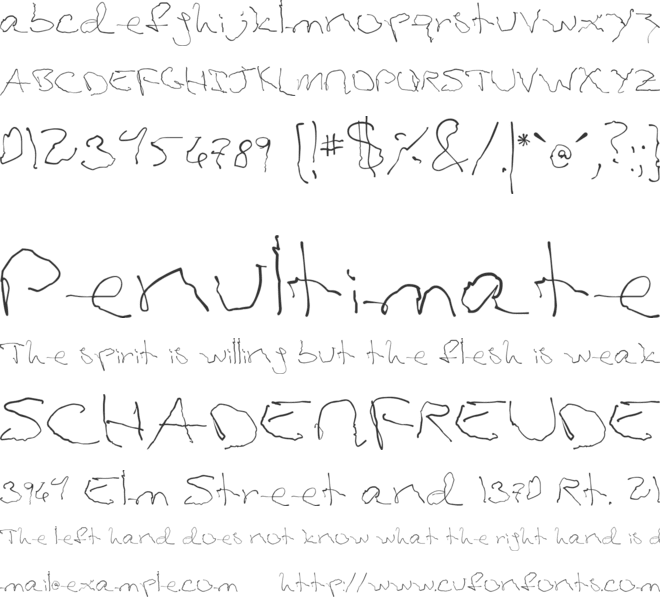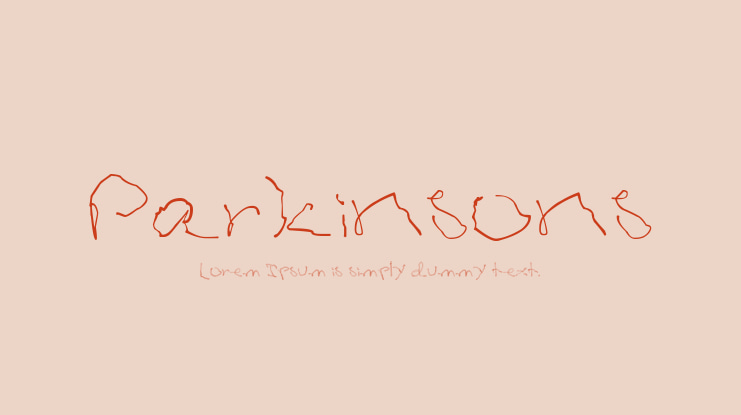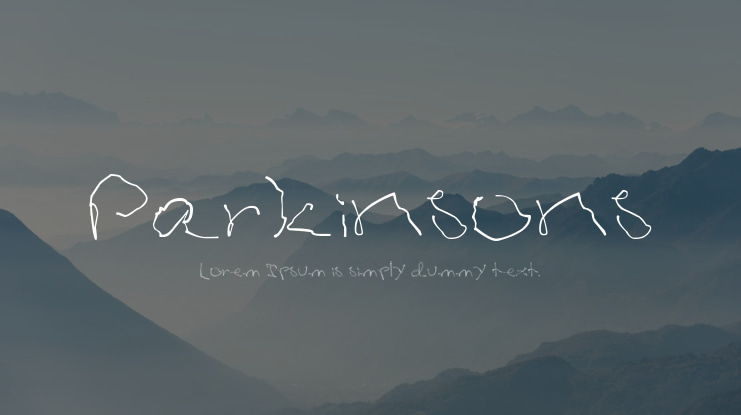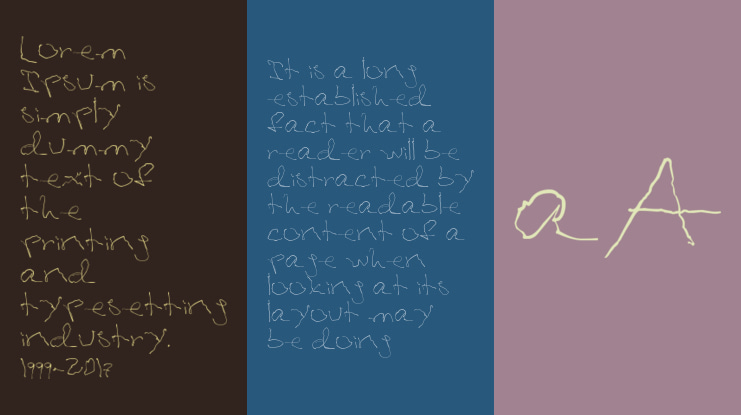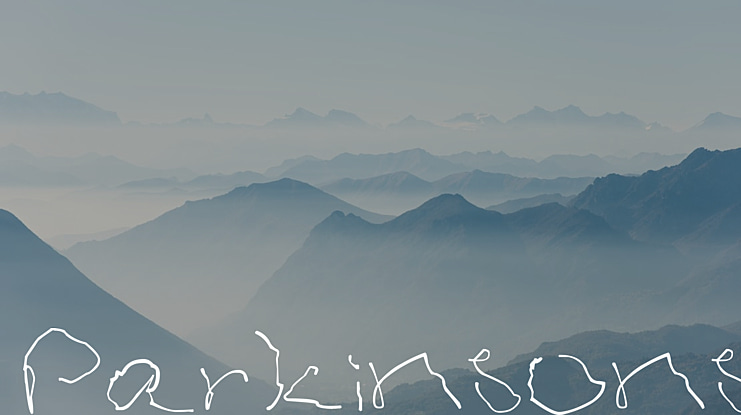
Parkinsons Font
This font was written by Rick Walton who has been diagnosed with Parkinson's Disease. We created this font so that is can be used on April 9th, Parkinson's Awareness Day to spread awareness about PD. For more information on this campaign you can email us at